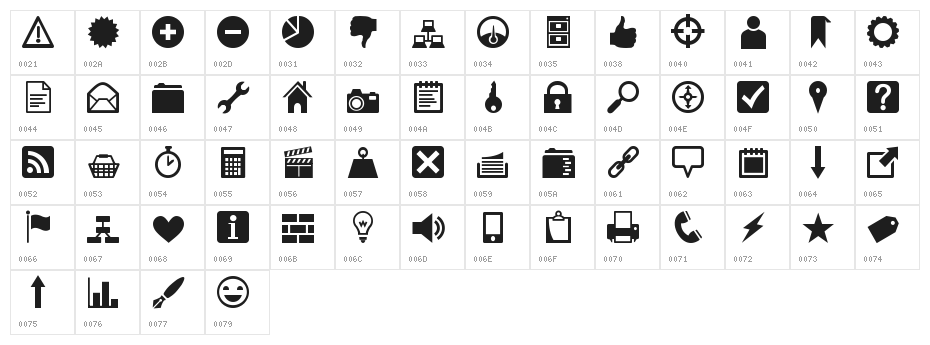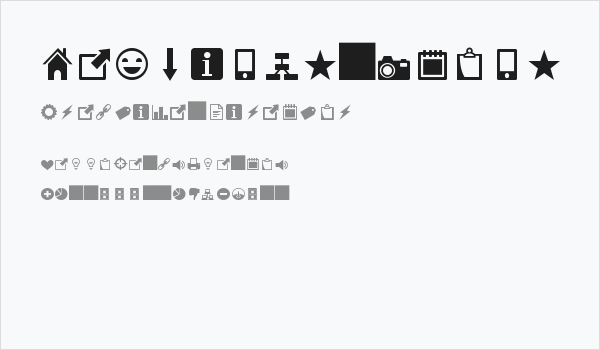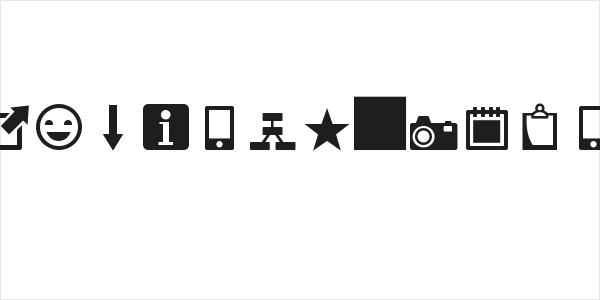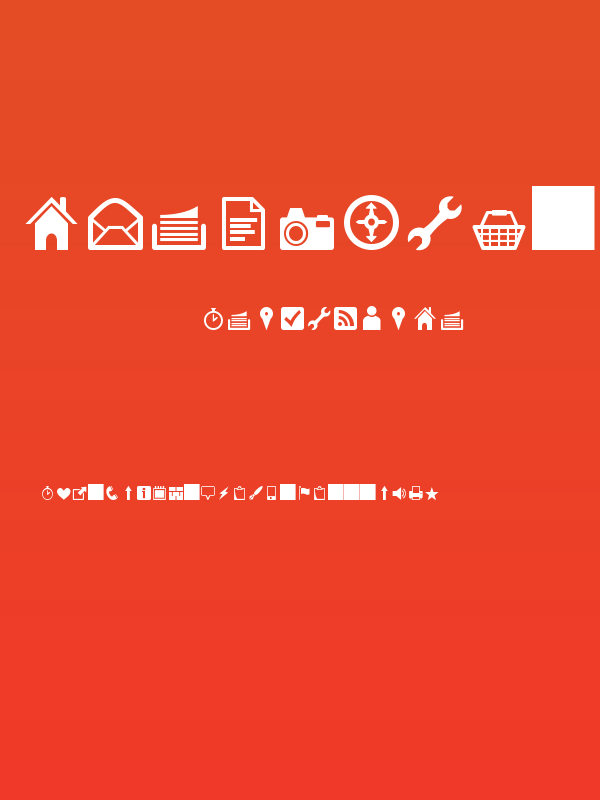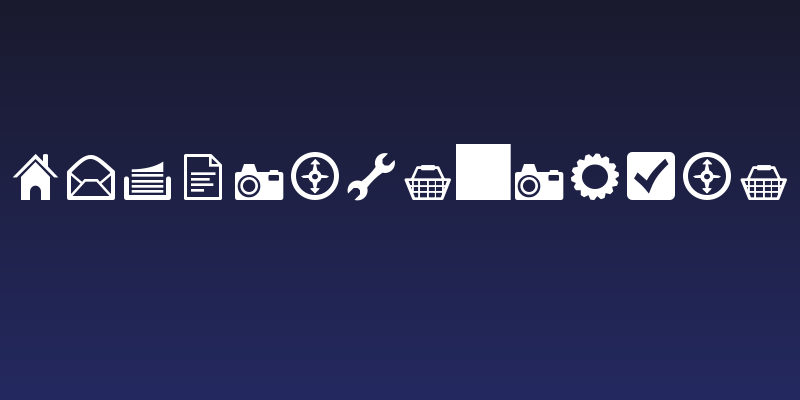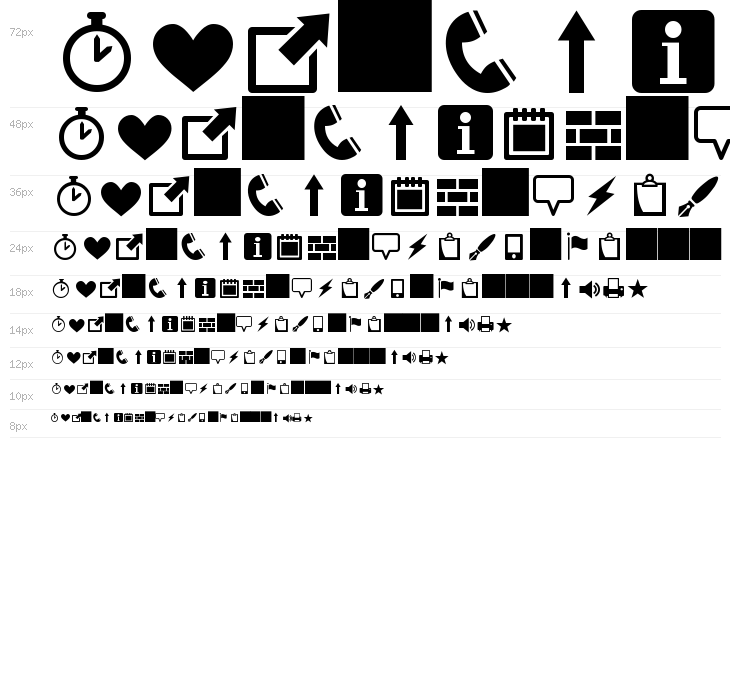
Heydings Icons Font
Heydings Icons Description
This collection features a diverse set of icons, each designed with a minimalist and clean aesthetic. The icons include common symbols such as a person, gear, envelope, folder, wrench, house, camera, lock, magnifying glass, and more. Each icon is crafted with solid fills and simple shapes, making them easily recognizable and versatile for various applications. The icons maintain a consistent style, with uniform line thickness and balanced proportions, ensuring they work well together in any design project.